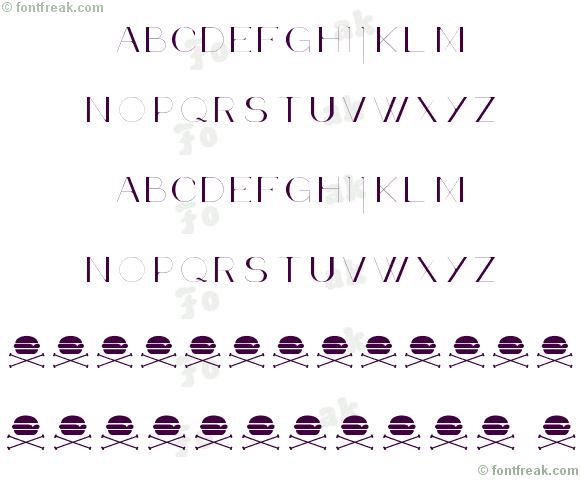
Acne Demo Regular
Acne Demo Regular, designed by Viktor Hammarberg, is a striking display font that falls within the category of decorative typefaces. This font is characterized by its unique blend of elegance and modernity, making it a versatile choice for various design projects. The stroke weight exhibits a refined balance, with graceful thin lines contrasted by slightly bolder sections, providing an eye-catching visual appeal. The spacing between letters is carefully optimized to enhance readability while maintaining an artistic flair, which is essential for impactful design.
The Acne Demo Regular font is particularly well-suited for specific use cases. Its stylish aesthetic makes it an excellent choice for wedding invitations, where elegance and sophistication are paramount. Additionally, it works beautifully on movie posters, adding a contemporary touch that captures attention. Restaurant menus can also benefit from this font, as it conveys a sense of style that enhances the dining experience. Furthermore, content creators will find it ideal for branding projects, as it offers a unique identity that stands out in a crowded marketplace.
This font primarily targets graphic designers, small business owners, and content creators looking for a distinctive typeface to elevate their projects. Whether for personal or commercial use, Acne Demo Regular is a fantastic option for anyone in need of a visually appealing font.
What sets Acne Demo Regular apart is its ability to combine modern design elements with timeless elegance, making it a standout choice for various applications. The Acne Demo Regular font free download offers designers an opportunity to experiment with a font that not only enhances their creative projects but also leaves a lasting impression on their audience. Embrace the unique style of Acne Demo Regular and elevate your designs today.